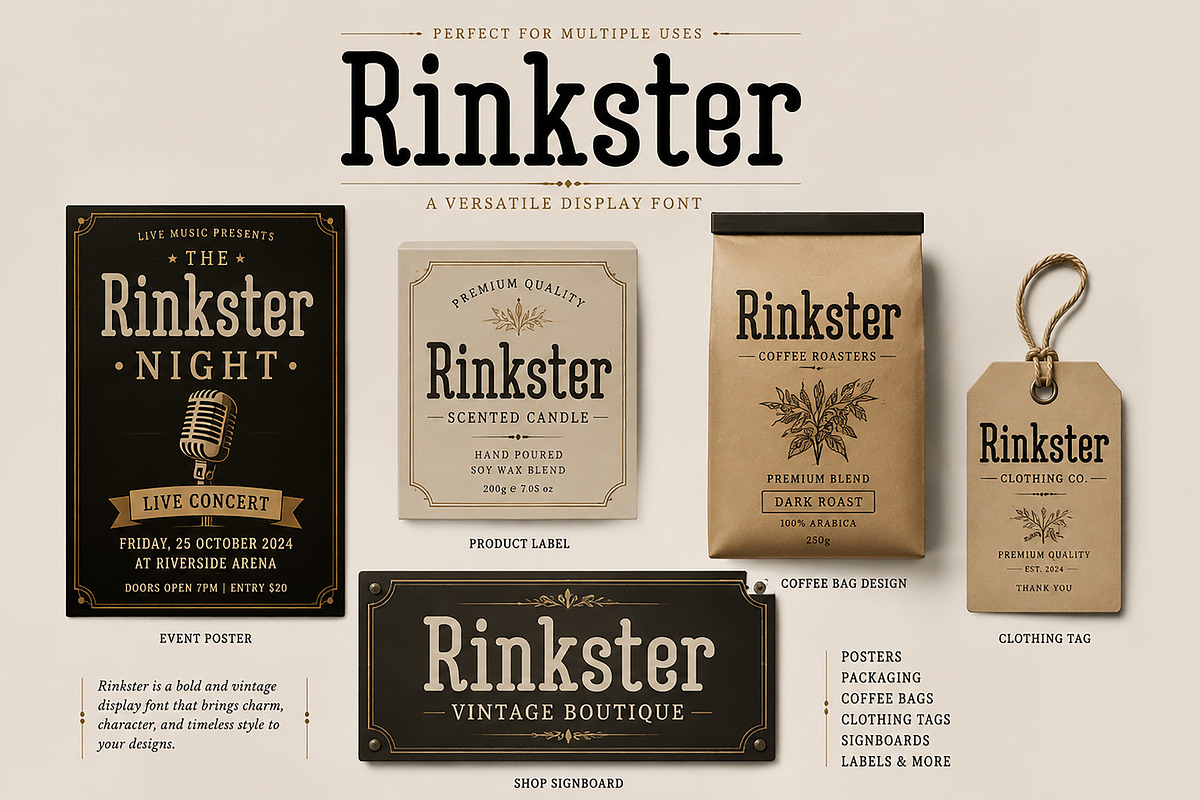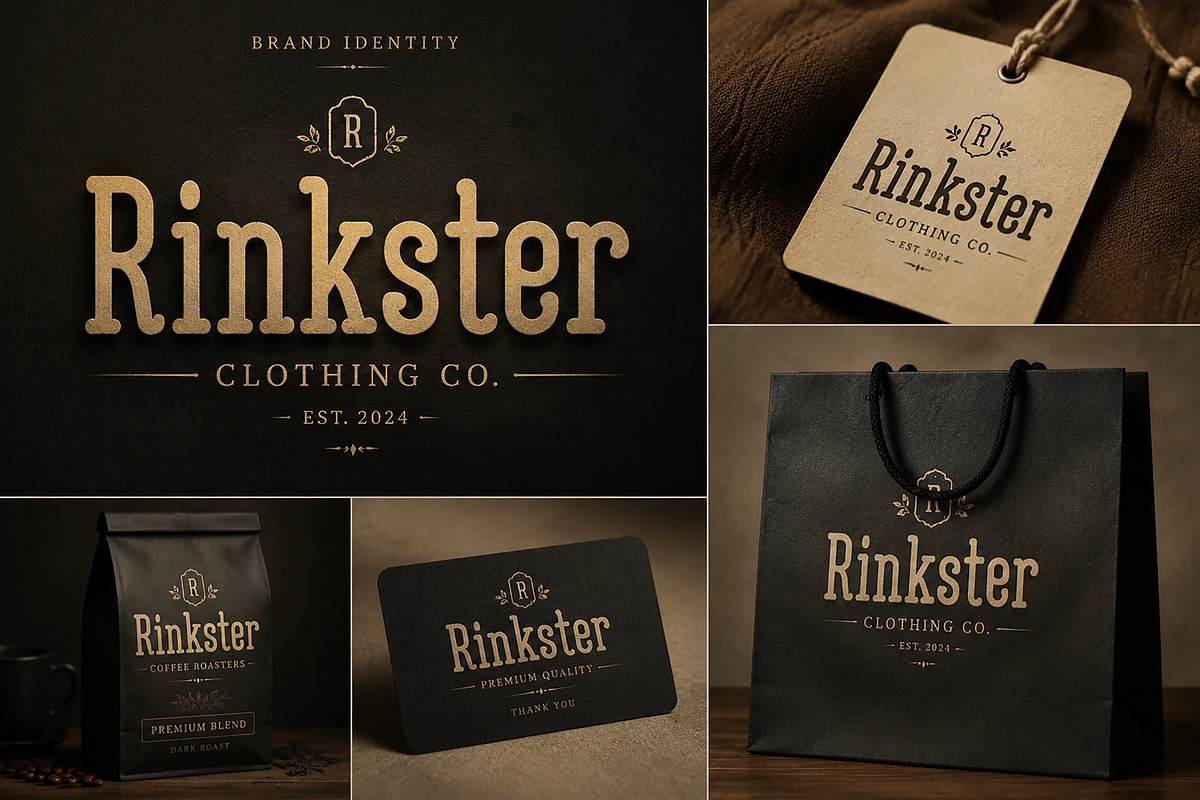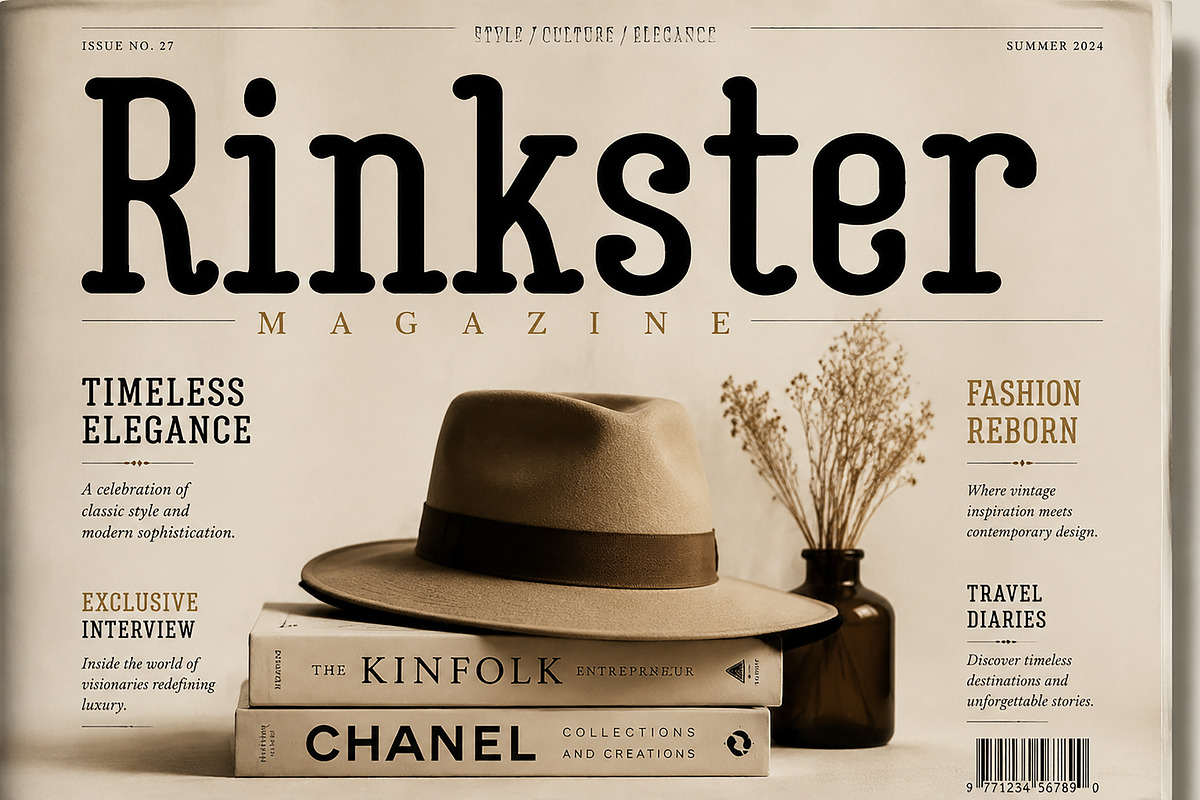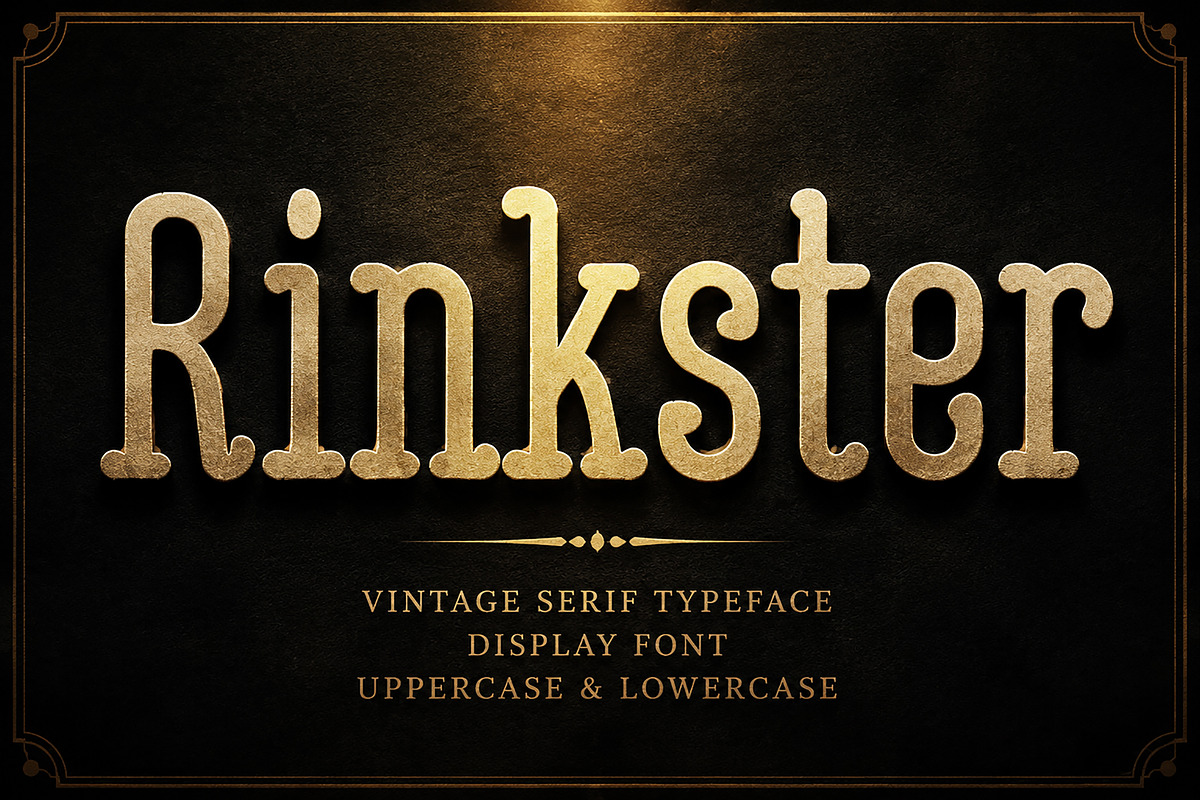
Rinkster - Vintage Serif Font
Rinkster - Vintage Serif Display Font
Description:
Rinkster is a bold vintage serif display font inspired by classic typography, editorial design, and timeless branding aesthetics. With its strong character, elegant curves, and distinctive serif details, Rinkster is perfect for creating luxury logos, fashion branding, magazine covers, posters, packaging, labels, and creative display designs.
Designed to bring a premium and nostalgic feel to your projects, Rinkster works beautifully for both modern and vintage-inspired designs. Its versatile style makes it suitable for brands, boutique identities, product packaging, advertisements, headlines, and artistic compositions.
Vintage Serif Display Typeface
Elegant and bold letterforms
Uppercase & Lowercase characters
Numbers and punctuation included
Perfect for branding and editorial projects